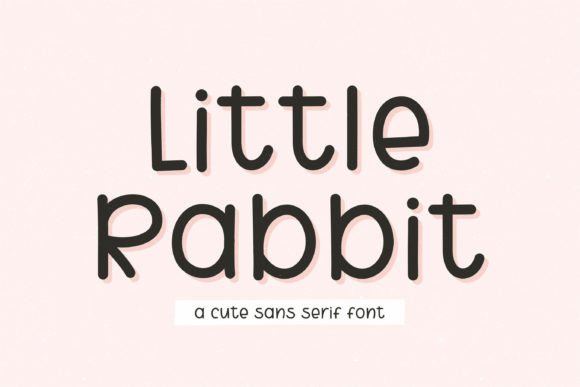
Introducing Little Rabbit Font, the perfect addition to your design toolkit! This cute and neat sans serif font is sure to catch your eye with its simplicity and charm. Created by the talented designer Etjan Dsg, Little Rabbit Font is the perfect choice for those in search of the best fonts for simple logos.
Little Rabbit Font is incredibly versatile and can be used for a variety of design projects. Whether you're creating card designs, crafts, digital designs, presentations, social media designs, digital planners, or any other design project, this font will add a touch of sophistication and professionalism to your work.
With its clean lines and minimalist design, Little Rabbit Font is sure to capture the attention of your audience. Its elegant and stylish appearance will help elevate your brand and create a lasting impression on your customers.
But that's not all – Little Rabbit Font is also incredibly easy to use. Its simple and straightforward design makes it a breeze to incorporate into your projects, and its extensive character set ensures that you have access to all the letters, numbers, and symbols you need.